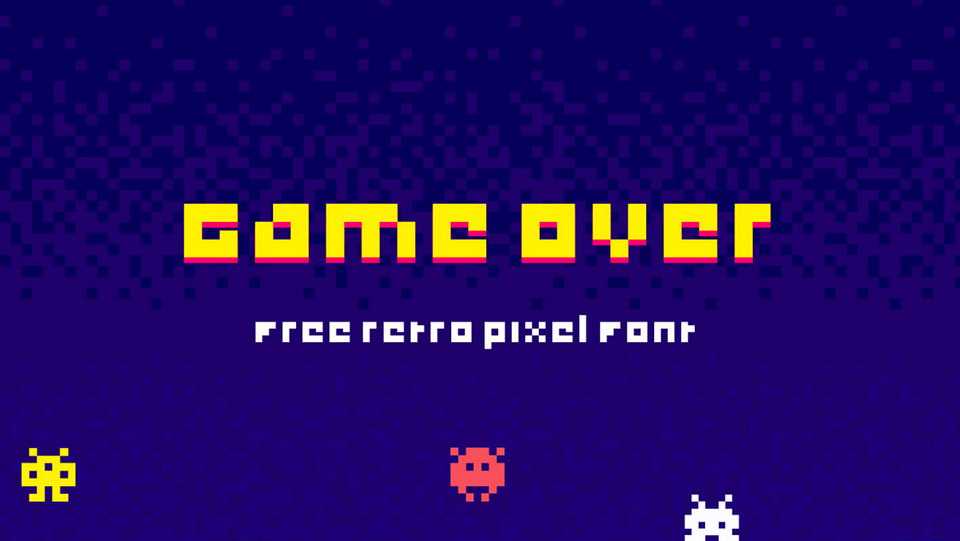
Download Game Over font, a retro pixel typeface inspired by old computer games. Game Over for is perfect for branding, posters, vintage designs, games and other creative projects.
Designer: Mariano Diez